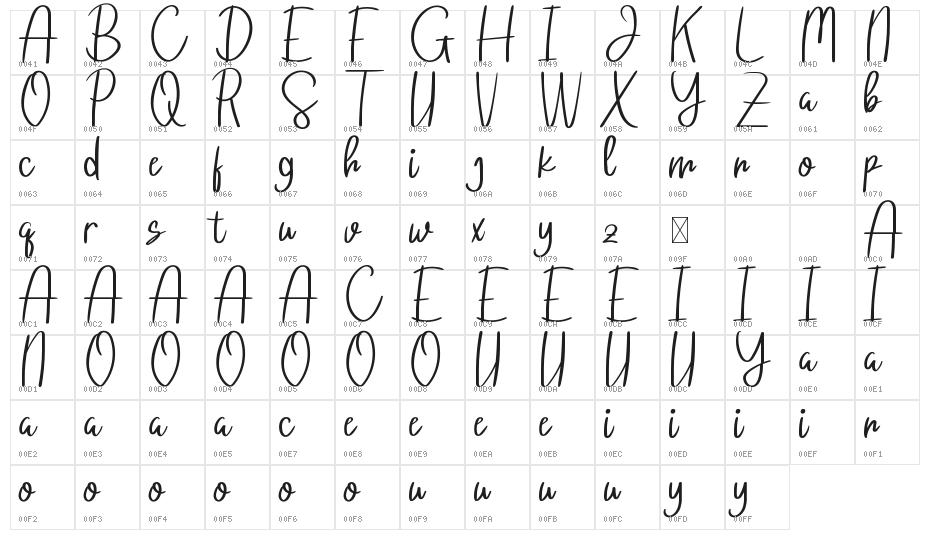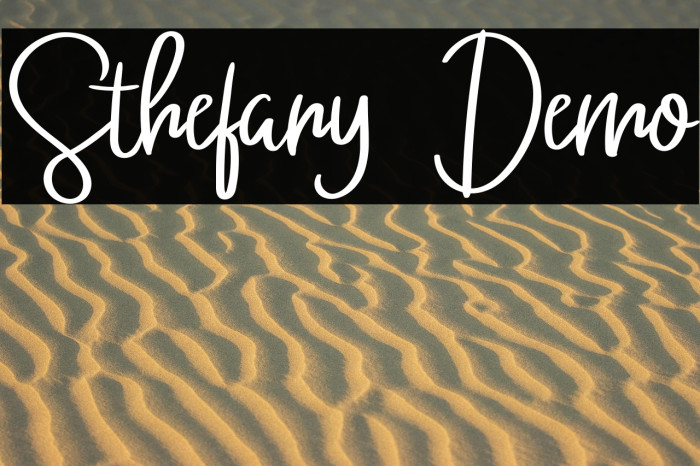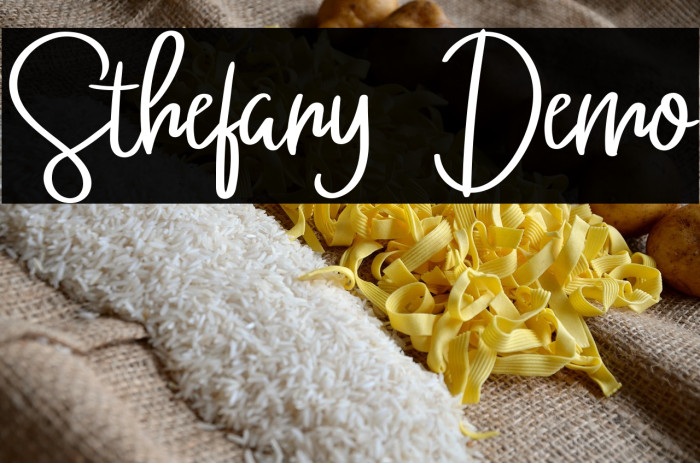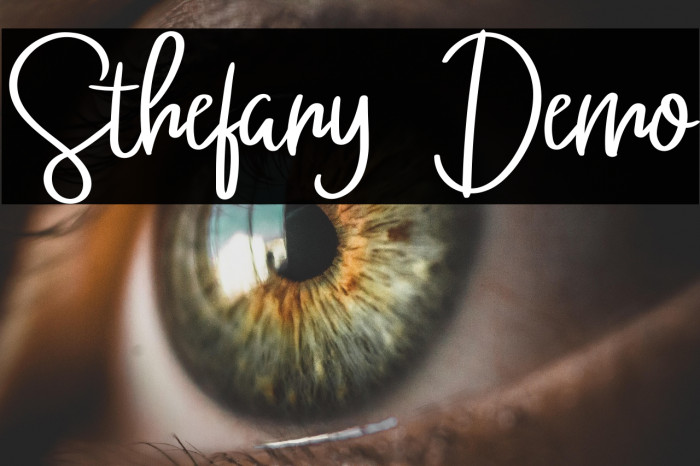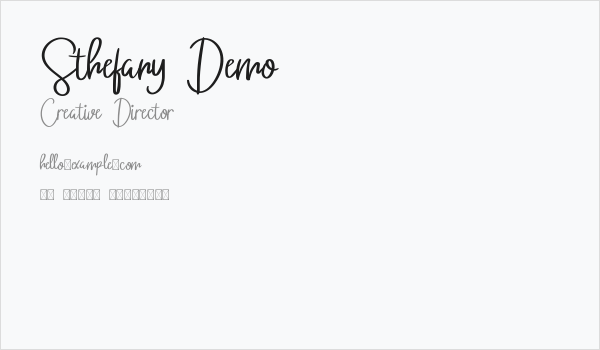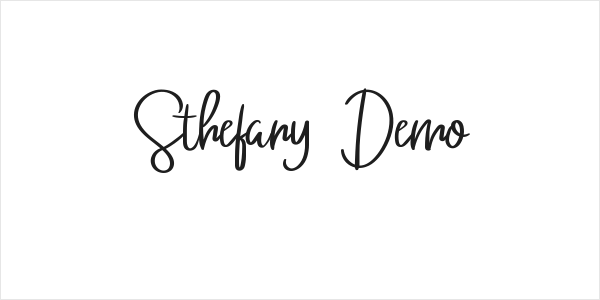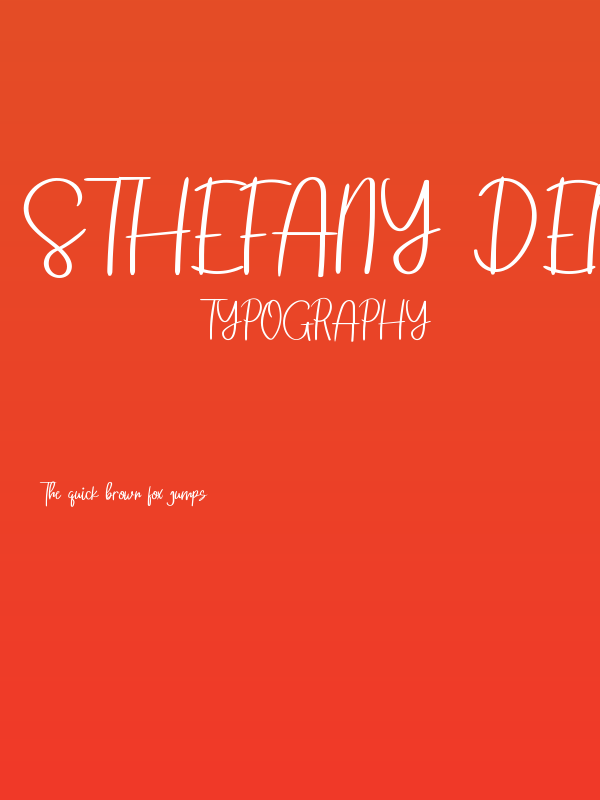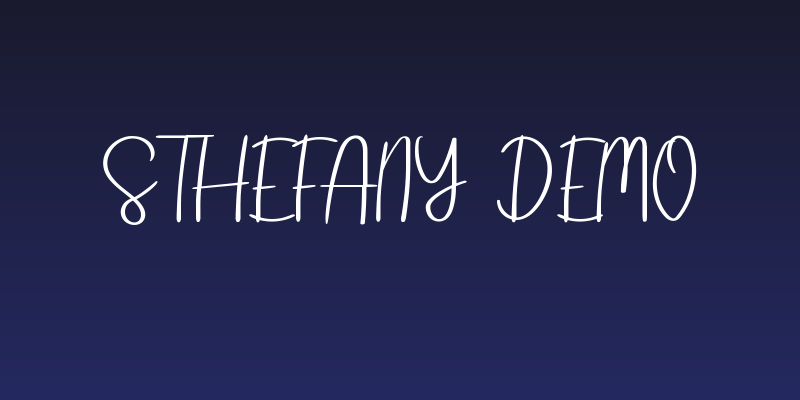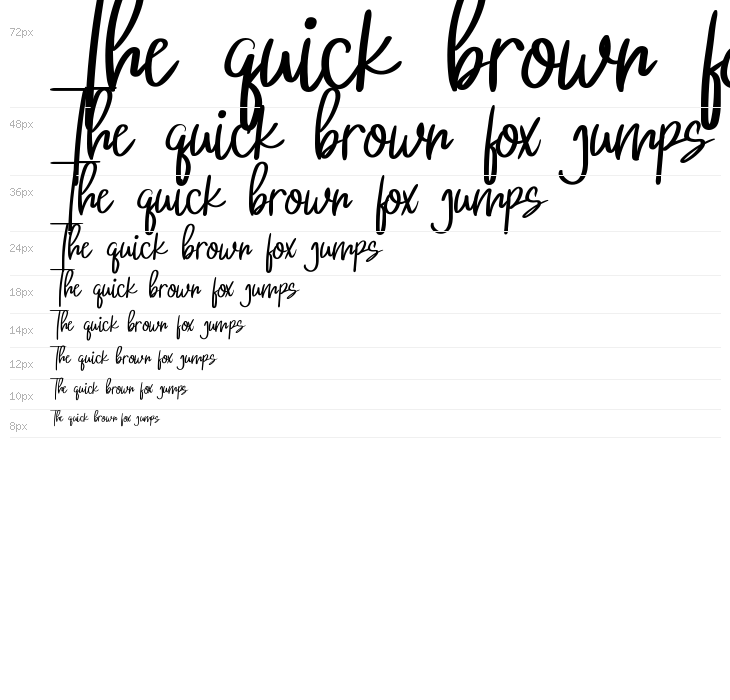
Sthefany Demo Font
Sthefany Demo Description
This font features a playful and dynamic handwritten style, characterized by its flowing, cursive letters that convey a sense of movement and energy. The uppercase letters are tall and slender, with a slight slant that adds to the casual feel. The lowercase letters are more rounded and connected, enhancing the script-like appearance. The font maintains a consistent stroke width, giving it a uniform look, while the spacing between characters is relatively tight, contributing to its cohesive and compact appearance. The overall style is modern and informal, making it suitable for creative and expressive projects.
| Proposed Projects | Ideal for greeting cards, invitations, personal branding, and creative social media graphics. |